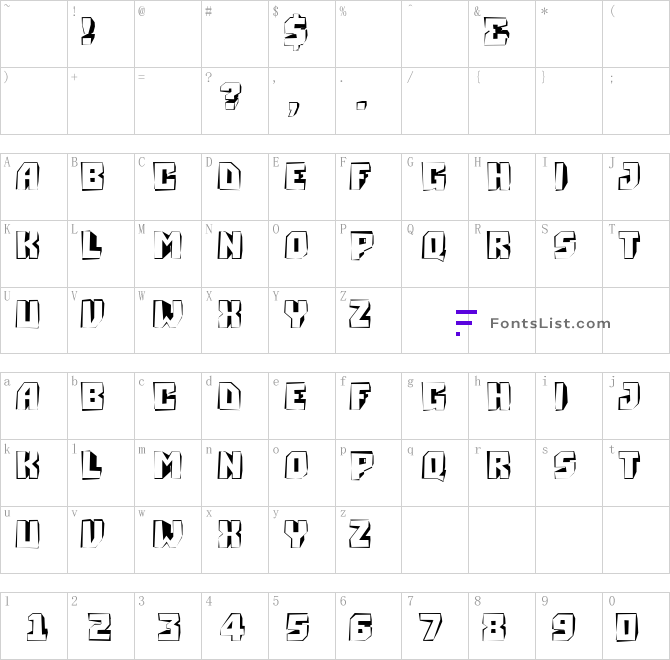
- Font Name:a_SimplerDst3D
- Full Name:a_SimplerDistorted3D
a_SimplerDistorted3D.ttf is a very beautiful artistic font, a_SimplerDistorted3D.ttf is widely used in the design and printing of various books and pictures,a_SimplerDistorted3D.ttf has a strong visual impact,a_SimplerDistorted3D.ttf is a commonly used font in newspapers, magazines and books, and is used in posters, e-commerce Poster design, store design, logo design, font design and other fields.a_SimplerDistorted3D.